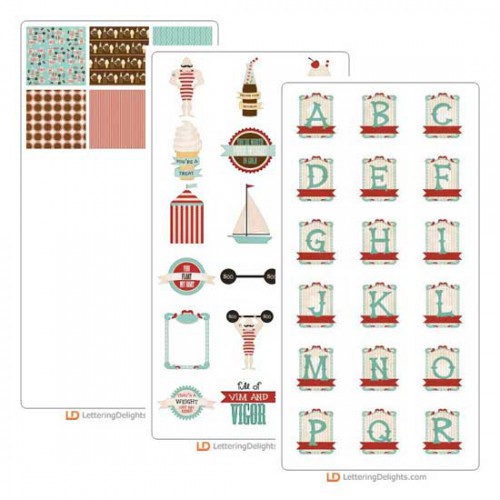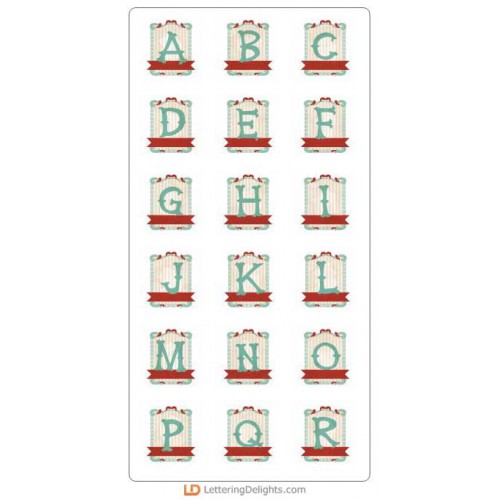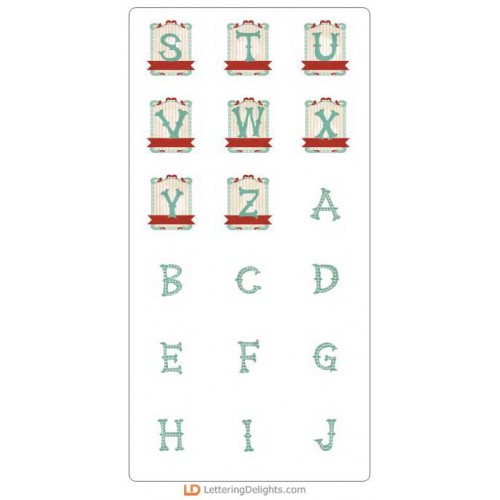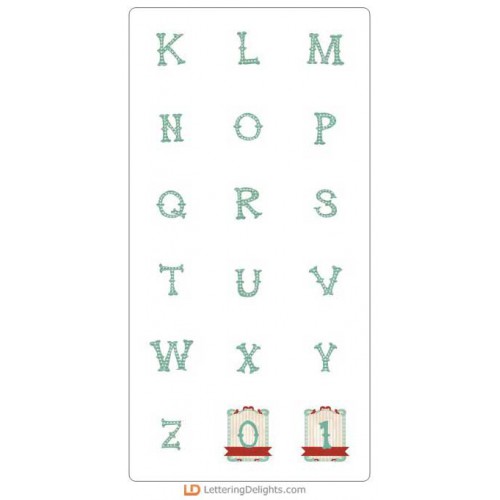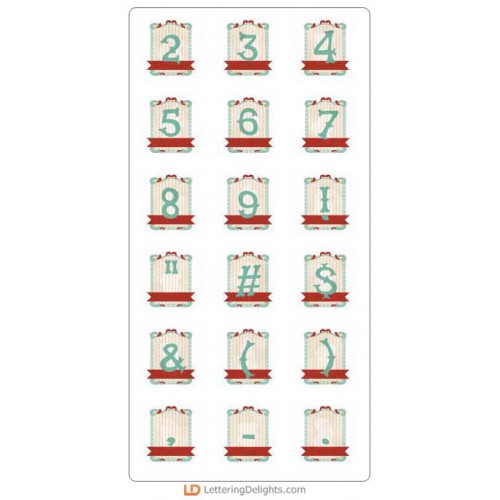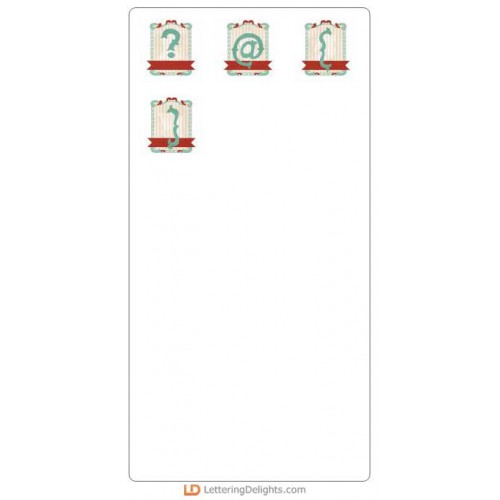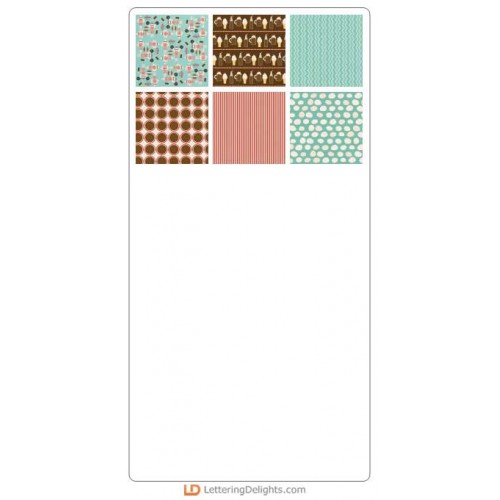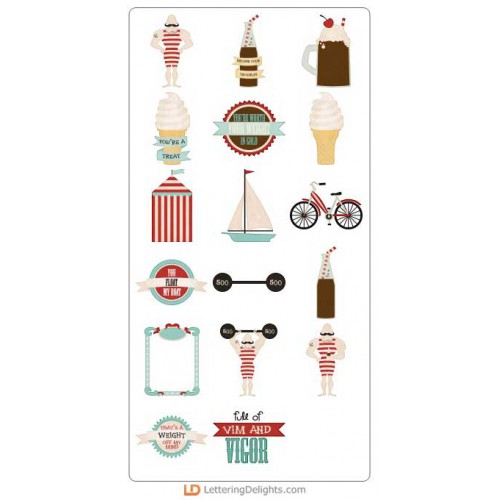
Vim and Vigor Collection
Meet Vim, our resident strong man! This retro inspired strong man collection is perfect for scrapbooking, parties planners and more!